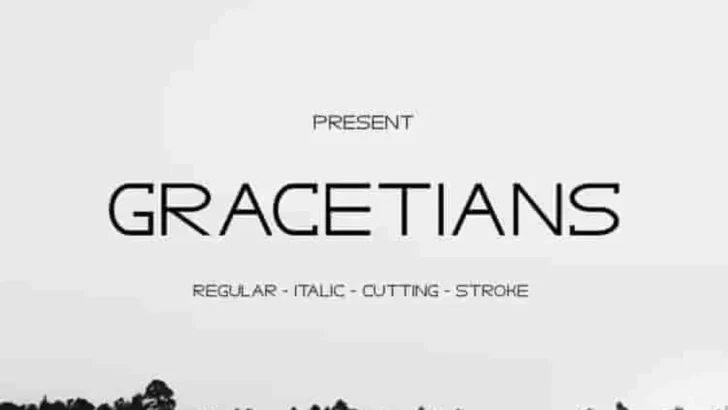
GRACETIANS Sans Serif Display Font
GRACETIANS is a modern futuristic yet stylish font. This is a new kind of SANS Display font with unique and exclusive glyph From EdricStudio